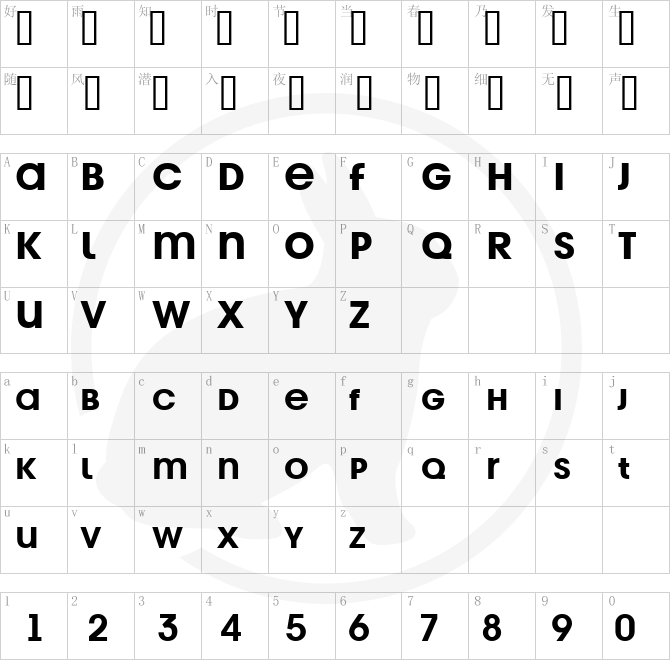
- Font Name:a_AvanteTitlerCpsLC
- Subfamily:Macromedia Fontographer 4.1 a_AvanteTitlerCpsLC Bold
- Full Name:a_AvanteTitlerCpsLC Bold
a_AvanteTitlerCpsLC-Bold.ttf is a very beautiful artistic font, a_AvanteTitlerCpsLC-Bold.ttf is widely used in the design and printing of various books and pictures,a_AvanteTitlerCpsLC-Bold.ttf has a strong visual impact,a_AvanteTitlerCpsLC-Bold.ttf is a commonly used font in newspapers, magazines and books, and is used in posters, e-commerce Poster design, store design, logo design, font design and other fields.a_AvanteTitlerCpsLC-Bold.